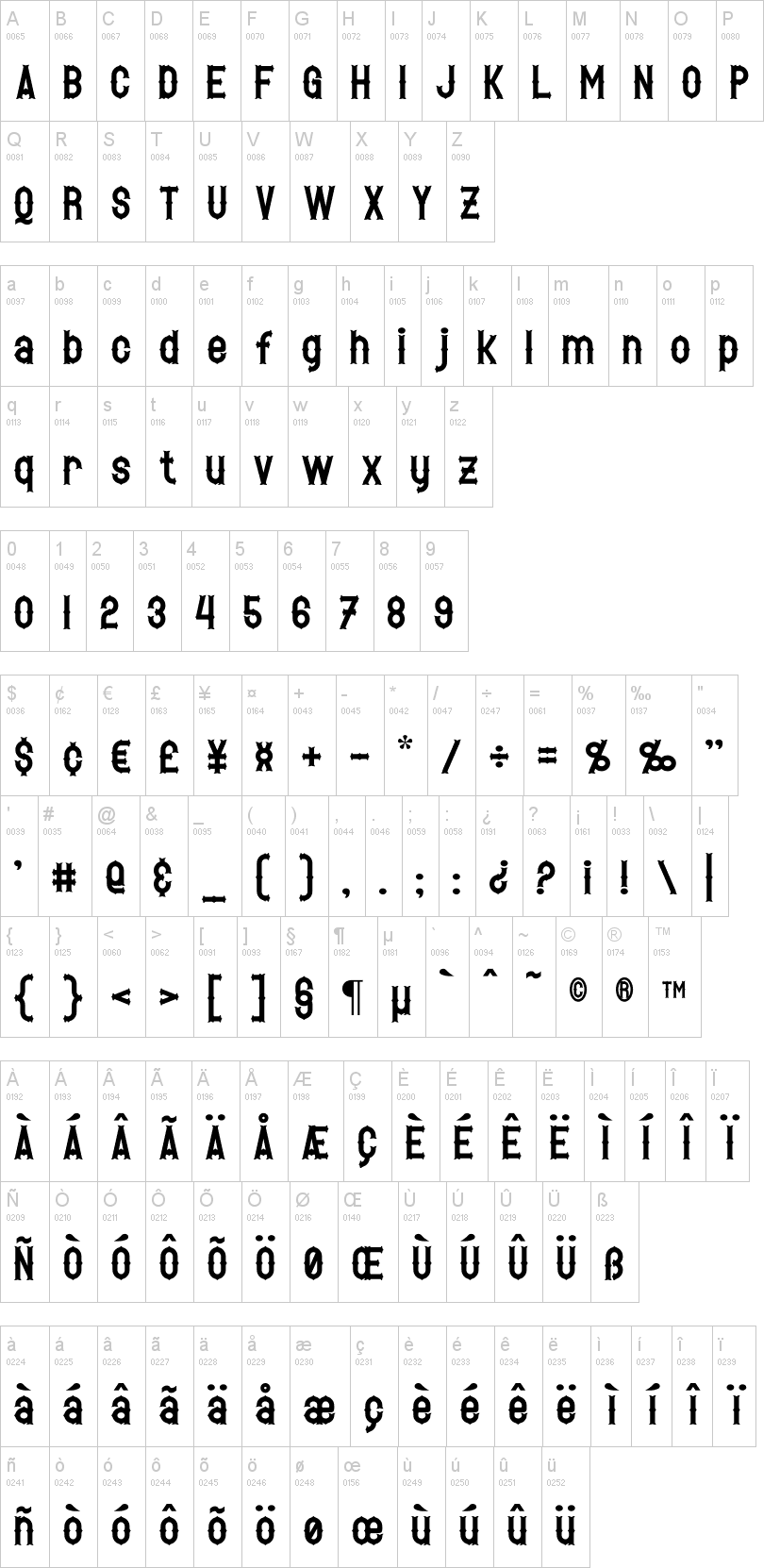
Hetfield Italic.otfHetfield Bold.otfHetfield Bold Italic.otfNote of the authorA simple western font with decorative floursih for all the serifs. Includes full alphabet, lower case, punctuation, extended character set, and Euro. Includes bold and italic versions.